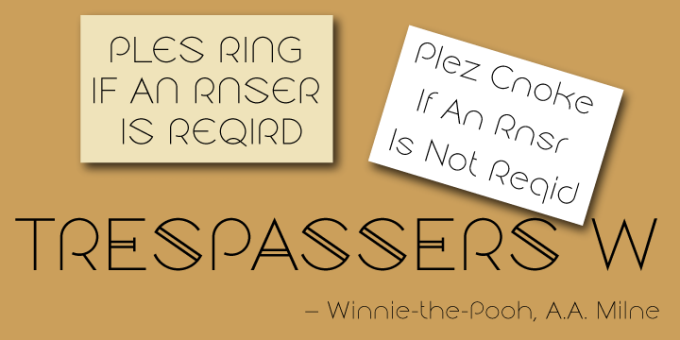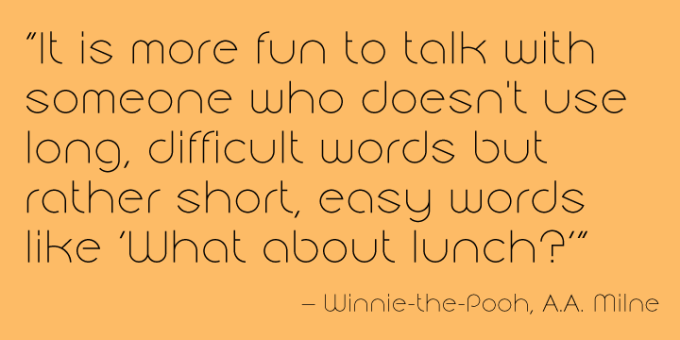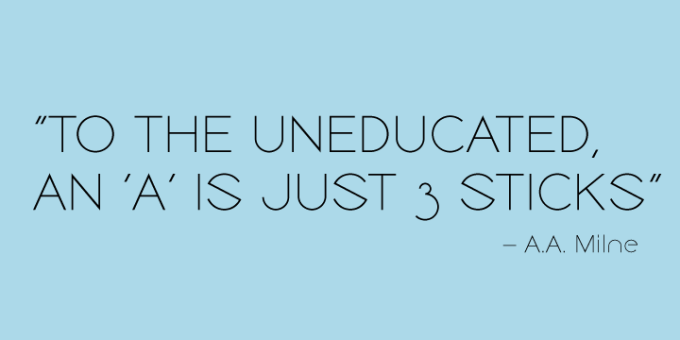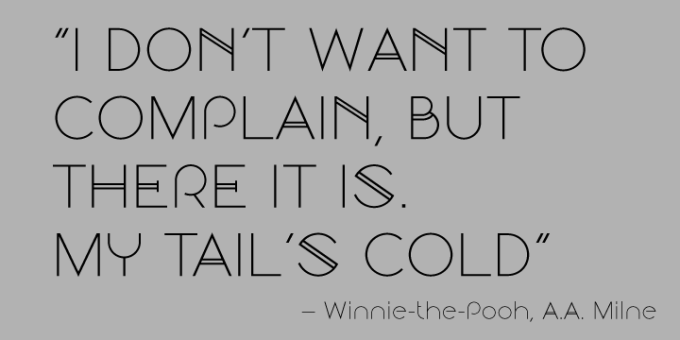
Tumbly
Tumbly is a decorative typeface family of Regular and two Alternatives with variations in caps and numbers. Conceived as a college senior thesis over a decade ago, Tumbly was recently rediscovered.
Original inspiration for the typeface was the round belly of Winnie-the-Pooh.
Tumbly is ideally suited for headlines, decorative and display use.
Original inspiration for the typeface was the round belly of Winnie-the-Pooh.
Tumbly is ideally suited for headlines, decorative and display use.